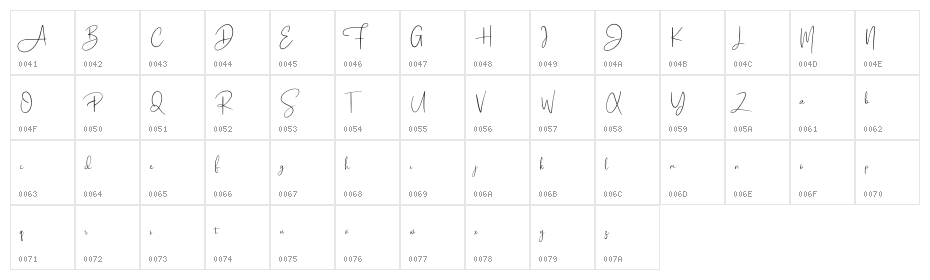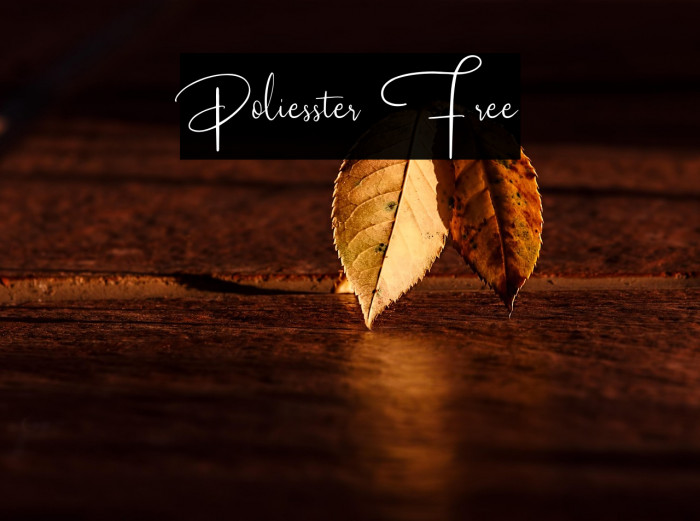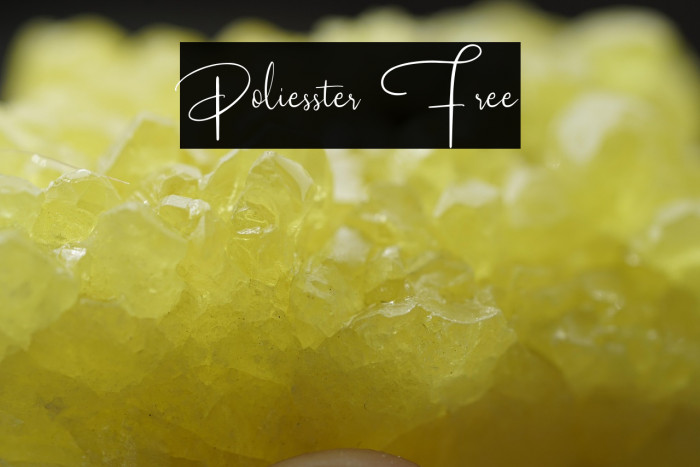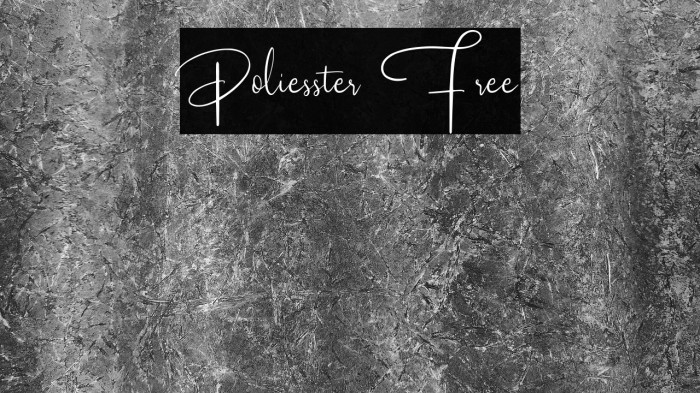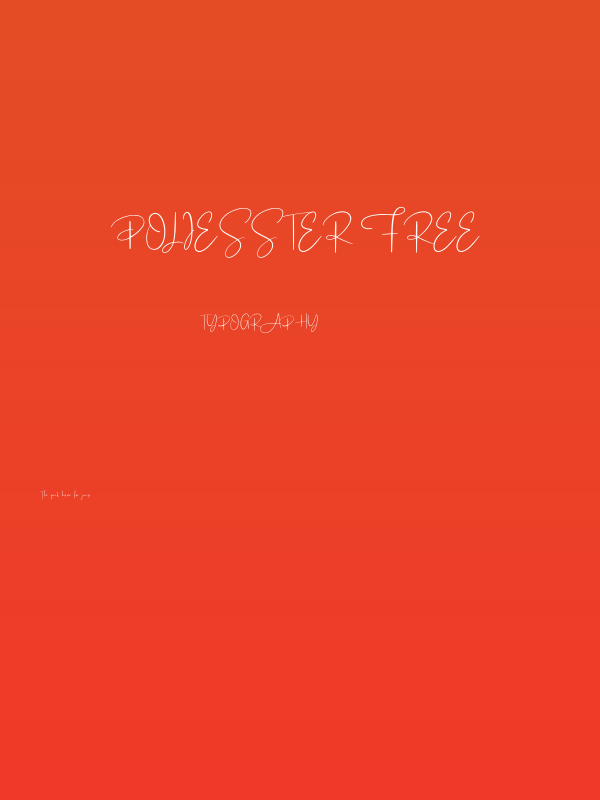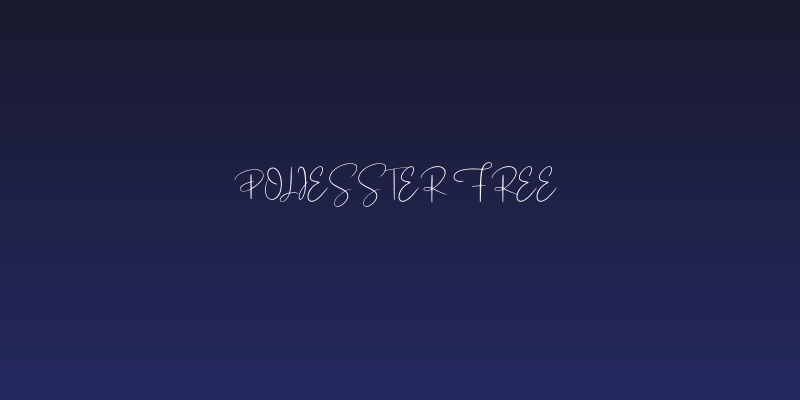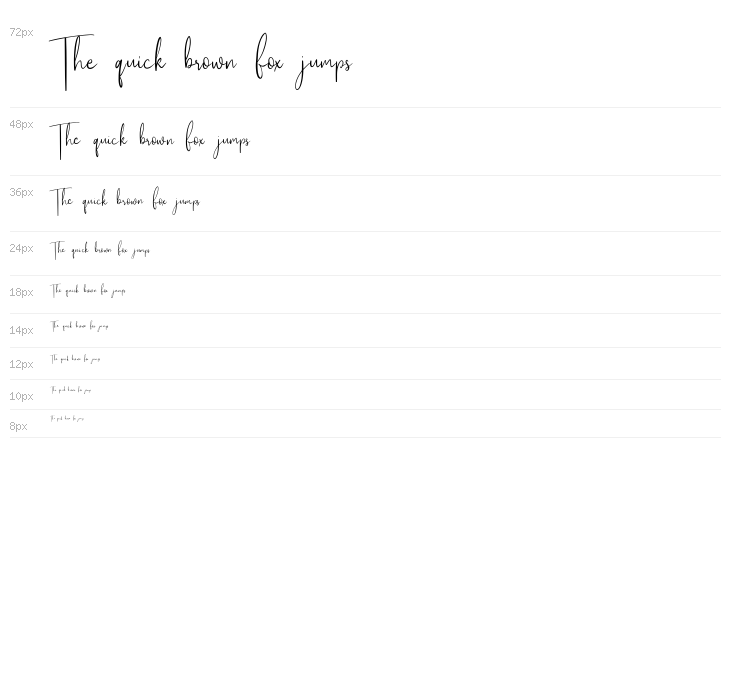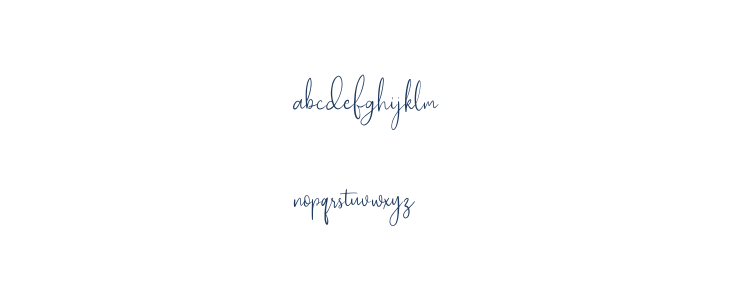
Poliesster Free Font
Poliesster Free Description
This font features a flowing, cursive style that exudes elegance and sophistication. The uppercase letters are characterized by their tall, slender forms with sweeping curves and loops that add a sense of movement and grace. The lowercase letters maintain a consistent style, with delicate strokes and a slightly condensed appearance, enhancing readability while preserving the font's artistic flair. The numerals and special characters are designed to complement the alphabet, maintaining the same fluidity and charm. This font is perfect for projects that require a touch of elegance and personal expression.
| Proposed Projects | Ideal for wedding invitations, personal branding, elegant packaging, and artistic posters. |